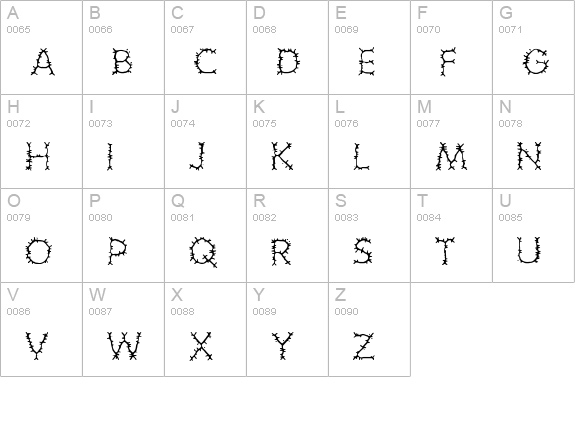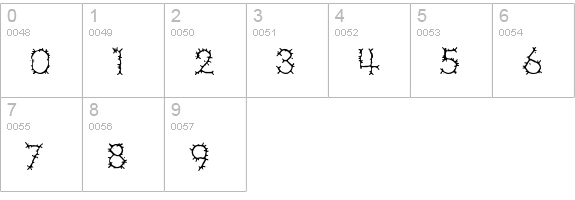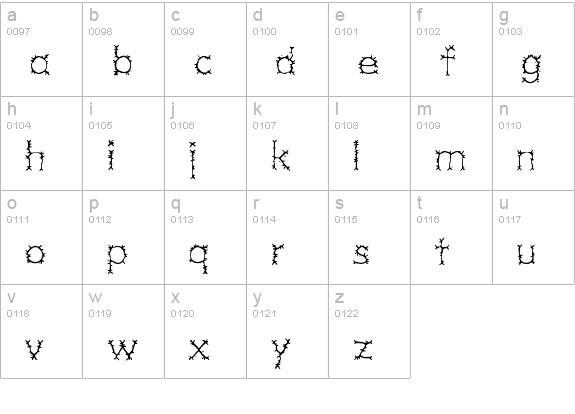
Grotesque -BRK- Font Details
Grotesque -BRK- is a bold and distinctive font that exudes a unique charm with its unconventional and quirky design. This font features a blend of modern and vintage elements, making it perfect for projects that require a touch of edginess and personality. The exaggerated strokes and irregular shapes give Grotesque -BRK- a playful and eye-catching appearance, setting it apart from traditional fonts. This font is versatile and can be used for a variety of design projects, such as branding, posters, logos, and more. Its bold presence makes it ideal for headlines and titles that need to make a statement. Grotesque -BRK- brings a sense of creativity and individuality to any design it is used in, making it a standout choice for those looking to break away from the norm. Best of all, Grotesque -BRK- is available for free download at FontsMarket.com, allowing designers and creatives to access this unique font without any cost. Whether you're working on a personal project or a client's design, Grotesque -BRK- is sure to add a touch of originality and flair to your work. Download it today and unleash the creative possibilities that this font has to offer.